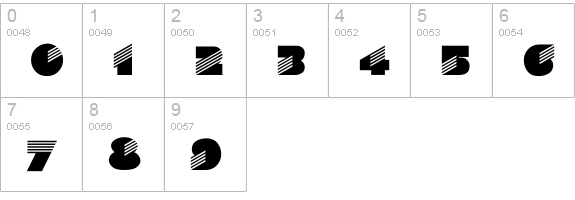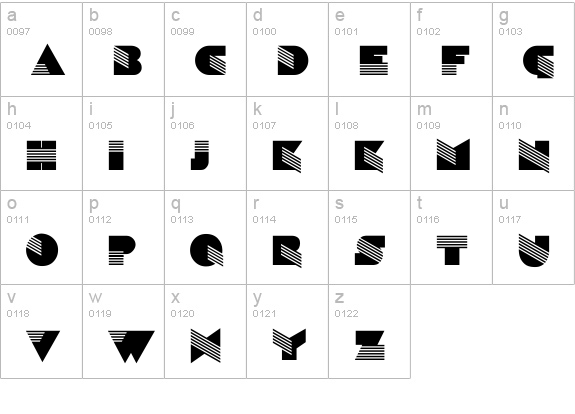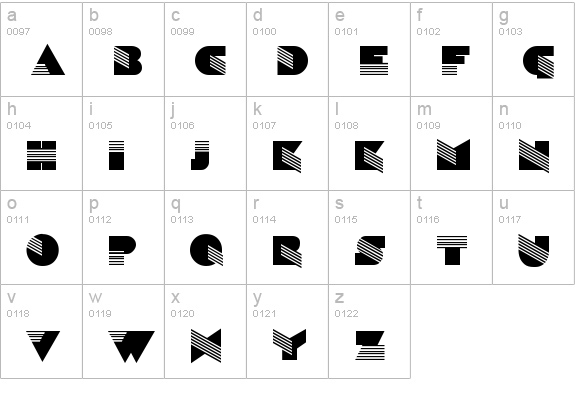
Sinaloa Font Details
Sinaloa font is a beautifully designed typeface that effortlessly combines elegance and modernity. With its sleek lines and sophisticated curves, this font exudes a sense of professionalism and creativity, making it perfect for a wide range of design projects. The versatility of Sinaloa font allows it to be used across various platforms, whether it's for print materials, digital designs, or branding purposes. Its clean and legible characters ensure readability, while its unique details add a touch of personality to any project. One of the most amazing aspects of Sinaloa font is that it is freely available to download at FontsMarket.com. This means that designers and creatives can access this exceptional font without any cost, making it an ideal choice for those who are looking to create stunning designs without breaking the bank. Whether you are a professional designer or a hobbyist, Sinaloa font is a valuable asset to have in your font library. Its versatility, elegance, and availability make it a must-have for any design project. So why wait? Head over to FontsMarket.com and download Sinaloa font now to elevate your designs to new heights of excellence.